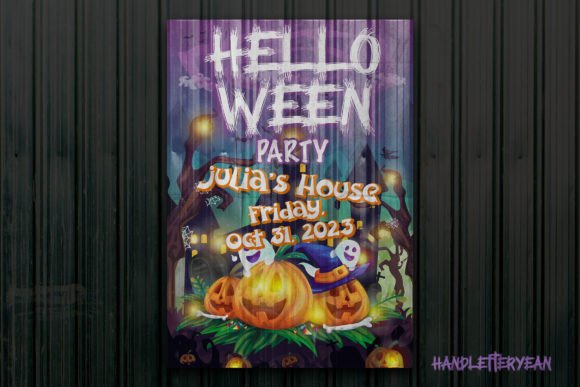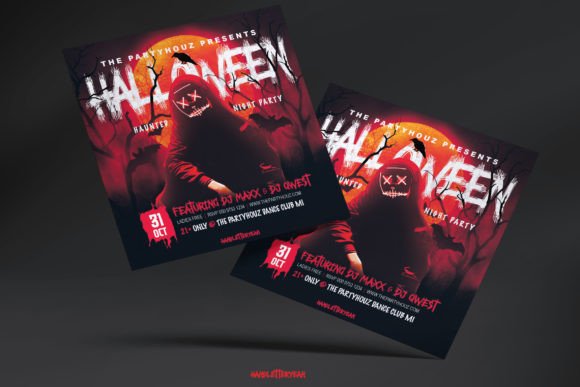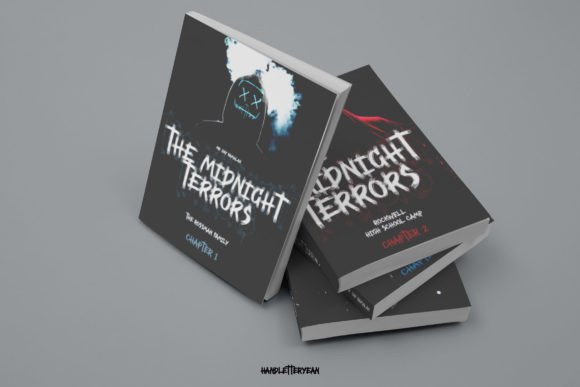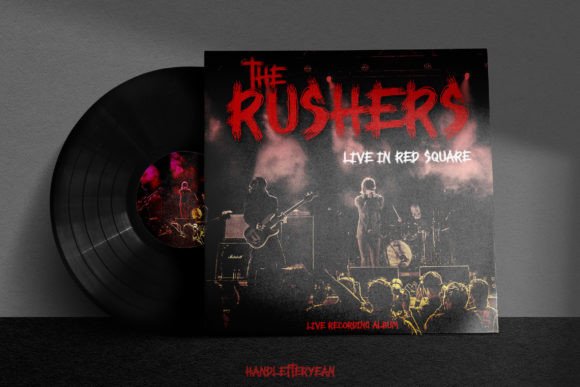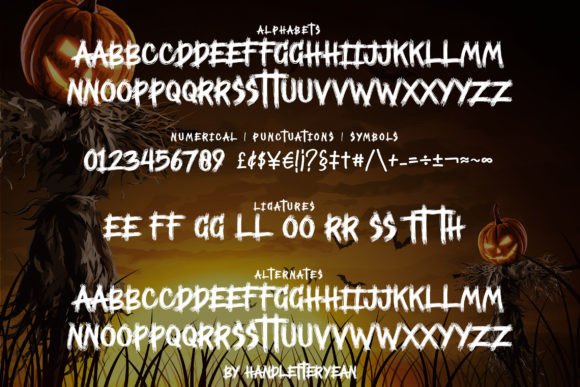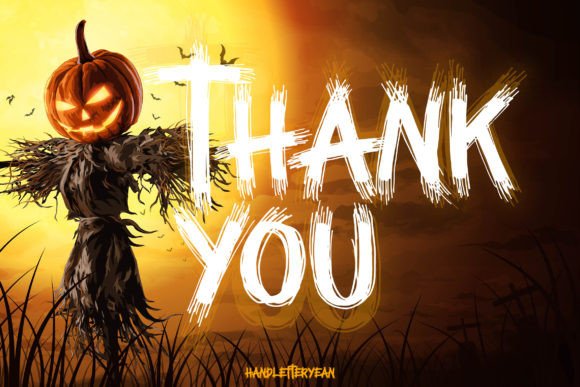
Hay Scary Font: The Ultimate Halloween Display Font for Designers
Are you looking for a font that will add a spooky touch to your Halloween designs? Look no further than the Hay Scary Font! This Halloween-themed display font is designed to make your designs stand out with its creative and festive style. In this article, we’ll take a closer look at the Hay Scary Font, its features, and how you can use it to make your Halloween designs more engaging and memorable.
What is Hay Scary Font?
Hay Scary Font is a display font specifically designed for Halloween-themed designs. Its unique and creative style is perfect for making your designs stand out from the crowd. The font features a bold and playful style that is sure to capture the spirit of Halloween. Whether you’re designing invitations, posters, or social media graphics, the Hay Scary Font is the perfect choice.
Key Features of Hay Scary Font
The Hay Scary Font comes with several key features that make it an ideal choice for designers. Some of its notable features include:
- Unique and Creative Style: The Hay Scary Font features a unique and creative style that is sure to make your designs stand out.
- Halloween-themed: The font is specifically designed for Halloween-themed designs, making it perfect for the spooky season.
- Bold and Playful: The font features a bold and playful style that is sure to capture the spirit of Halloween.
How to Use Hay Scary Font
- Use it for Headlines: The Hay Scary Font is perfect for headlines and titles. Use it to create eye-catching headlines that will grab your audience’s attention.
- Experiment with Colors: The Hay Scary Font comes in a variety of colors, so don’t be afraid to experiment and find the perfect color for your design.
- Pair it with Other Fonts: The Hay Scary Font can be paired with other fonts to create a unique and interesting design.
Benefits of Using Hay Scary Font
There are several benefits to using the Hay Scary Font for your Halloween designs. Some of the benefits include:
- Save Time: The Hay Scary Font can save you time and effort when designing Halloween graphics.
- Increase Engagement: The font’s creative and festive style is sure to capture your audience’s attention and increase engagement.
- Stand Out from the Crowd: The Hay Scary Font is unique and creative, making it the perfect choice for designers who want to stand out from the crowd.
Where to Use Hay Scary Font
The Hay Scary Font can be used in a variety of designs, including:
- Halloween Invitations: Use the Hay Scary Font to create spooky and festive Halloween invitations.
- Posters and Flyers: The font is perfect for creating eye-catching posters and flyers for Halloween events.
- Social Media Graphics: Use the Hay Scary Font to create engaging and memorable social media graphics for Halloween.
| Font Name | Hay Scary Font |
| Author | yean.aguste |